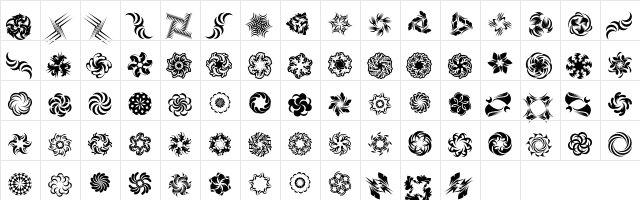
Complete Whirligig Two glyph index. Displaying only characters natively supported by Whirligig Two font.
Whirligig is a composed and adaptable typeface that performs quietly and consistently across a wide range of design contexts.